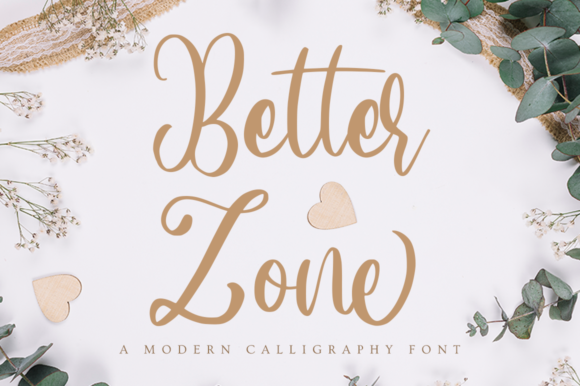
The Elusive Perfect Font: My Journey with Better Zone
Ah, the quest for the perfect font. It’s a design dilemma we’ve all faced at some point. I recall working on a wedding invitation project, pouring over font options, and just not feeling like any of them captured the elegance and whimsy I was going for. That’s when I stumbled upon Better Zone, an incredibly beautiful paint brushed script font that has since become a staple in my design toolkit.
First Impressions: A Love Affair with Better Zone
Better Zone is more than just a font – it’s a statement piece. With its classy, elegant, and modern look, it’s perfect for logos, branding, invitations, stationery, wedding designs, social media posts, and much more! The first thing that caught my eye was its unique, hand-painted feel that adds a touch of sophistication to any design.
What I Love About Better Zone ✨
- 💫 Unique, hand-painted feel that’s both elegant and modern
- ✅ Highly versatile – works well for a variety of design projects
- 🎨 Beautifully crafted with attention to detail
- 📈 Excellent for branding and logo design
- ⚠️ Some users may find the font a bit too ‘loopy’ or cursive for certain projects
- 🤔 Limited availability of certain characters or glyphs (but we’ll get to that later)
The Story Behind Better Zone: Designer Inspiration
Better Zone was designed with the intention of creating a font that captures the elegance and sophistication of hand-painted lettering. The designer, inspired by the beauty of brush calligraphy, set out to create a font that would bring a touch of whimsy and personality to any design project. With its unique blend of classic and modern elements, Better Zone is a true standout in the world of typography.
Q: Is Better Zone suitable for body text?
A: While Better Zone is a beautiful font, it’s primarily designed for display purposes. For body text, you may want to consider a font with better legibility and readability.